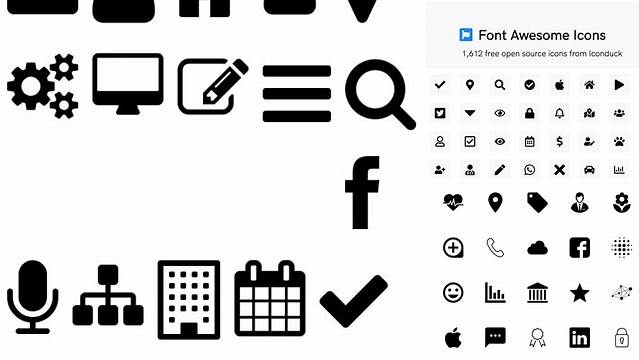
Font Awesome 4.7: Free Icons For Timeless Web Design
Hey everyone! Let's dive into the world of Font Awesome Free Icons 4.7. These icons are like the trusty old toolbox in your web design arsenal. Even though there are newer versions, version 4.7 remains incredibly popular and useful. In this article, we're going to explore why these icons are still relevant, how to use them, and some tips to make the most out of them. Whether you're a seasoned developer or just starting out, understanding Font Awesome 4.7 can give your projects a classic, clean look.
What is Font Awesome 4.7?
Font Awesome 4.7 is a comprehensive library of scalable vector icons that can be customized with CSS. Unlike image-based icons, Font Awesome icons are delivered as a font, meaning they are lightweight, infinitely scalable without losing quality, and can be easily styled with CSS properties like color, size, and shadows. The '4.7' refers to the version number, which, while not the latest, still offers a robust set of icons suitable for a wide range of web design needs. This version includes hundreds of icons covering various categories such as web application icons, transportation, gender, file types, and more. Its enduring popularity stems from its simplicity, broad compatibility, and the fact that many older projects still rely on it.
One of the key advantages of using Font Awesome 4.7 is its ease of integration. You can quickly add it to your project by linking to a CDN (Content Delivery Network) or by downloading the files and hosting them yourself. Once integrated, using the icons is as simple as adding a <i> tag with the appropriate class name to your HTML. For example, to add a home icon, you would use <i class="fa fa-home"></i>. This simplicity makes it accessible to beginners while still providing the flexibility that experienced developers need. Furthermore, Font Awesome 4.7 supports a wide range of browsers, including older versions, which is crucial for maintaining compatibility across different user environments. The icons are also designed to be highly customizable, allowing you to adjust their appearance to match your brand's aesthetic.
In addition to the basic icons, Font Awesome 4.7 also includes features like stacked icons, which allow you to combine multiple icons to create more complex symbols. This can be particularly useful for creating unique visual elements without needing to design custom graphics. Another useful feature is the ability to rotate and flip icons, providing even more flexibility in how you use them. These features, combined with the extensive range of icons available, make Font Awesome 4.7 a powerful tool for enhancing the visual appeal of your website or application. Despite being an older version, it remains a solid choice for many projects, especially those that prioritize stability and compatibility.
Why Use Font Awesome 4.7 in 2024?
While newer versions of Font Awesome offer more icons and features, there are several compelling reasons to stick with Font Awesome 4.7 in 2024. First and foremost is compatibility. Many older websites and web applications were built using this version, and upgrading to a newer version could introduce breaking changes. Maintaining the existing design and functionality often outweighs the benefits of the latest features. Additionally, Font Awesome 4.7 is lightweight and doesn't add unnecessary bloat to your project. This can be particularly important for websites that need to load quickly, as every little bit of optimization can make a difference in user experience and SEO rankings.
Another reason to use Font Awesome 4.7 is its simplicity. The older version has a straightforward implementation process. You won't need to deal with the complexities of newer versions, such as managing different icon styles (solid, regular, light, etc.) or using JavaScript to render the icons. This simplicity can save you time and reduce the potential for errors, especially if you're working on a small project or with a team that's not familiar with the latest web development trends. Furthermore, Font Awesome 4.7 is well-documented, and there's a wealth of resources available online, including tutorials, forums, and code examples. This makes it easy to find solutions to any issues you might encounter.
Finally, Font Awesome 4.7 is still a reliable choice. It has been thoroughly tested and used in countless projects over the years, so you can be confident that it will work as expected. While newer versions may offer more cutting-edge features, they can also be more prone to bugs and compatibility issues. By sticking with Font Awesome 4.7, you're choosing stability and dependability, which can be crucial for mission-critical applications. In summary, while it may not be the newest or flashiest option, Font Awesome 4.7 remains a practical and effective choice for many web development projects in 2024.
How to Install and Use Font Awesome 4.7
Okay, let's get down to the nitty-gritty of installing and using Font Awesome 4.7. There are a couple of straightforward methods you can use: via CDN (Content Delivery Network) or by self-hosting the files. Each has its pros and cons, so let's walk through them.
Using a CDN
The simplest way to get Font Awesome 4.7 up and running is by using a CDN. A CDN hosts the Font Awesome files on a network of servers, so you don't have to worry about downloading and hosting them yourself. To use a CDN, simply add the following line of code to the <head> section of your HTML file:
This line of code tells the browser to load the Font Awesome 4.7 stylesheet from the cdnjs CDN. Once you've added this line, you can start using Font Awesome icons in your HTML. For example, to add a user icon, you would use the following code:
The <i> tag is used to create an inline element, and the class attribute specifies the CSS classes to apply to the element. In this case, we're using the fa class, which is required for all Font Awesome icons, and the fa-user class, which specifies the user icon. Using a CDN is a quick and easy way to get started with Font Awesome 4.7, but it does rely on a third-party service. If the CDN goes down, your icons won't load.
So there you have it, guys! Font Awesome 4.7 remains a dependable and efficient option for web developers in 2024. Its simplicity, compatibility, and extensive icon set make it a valuable tool, especially for maintaining older projects or when you need a lightweight solution. While newer icon libraries offer more features, Font Awesome 4.7 continues to hold its own with its classic appeal and ease of use. Whether you're a seasoned pro or just starting out, mastering Font Awesome 4.7 can significantly enhance your web design capabilities. Keep experimenting with different styles and techniques to create visually appealing and user-friendly websites. Happy coding!